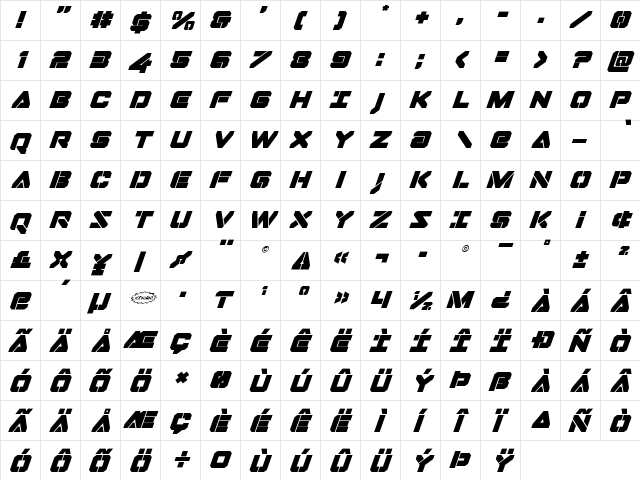
Domino Jack Super-Italic Italic
Design Context for Domino Jack Super-Italic Typeface
Domino Jack Super-Italic takes a measured approach to typography — its balanced proportions and neutral character make it a reliable workhorse for both digital and print work. The dynamic lean of this cut emphasises speed and emphasis in any layout.
Pro Tip: Use Domino Jack Super-Italic for emphasis, pull quotes, and subheadings where its slanted energy can add rhythm to the layout.